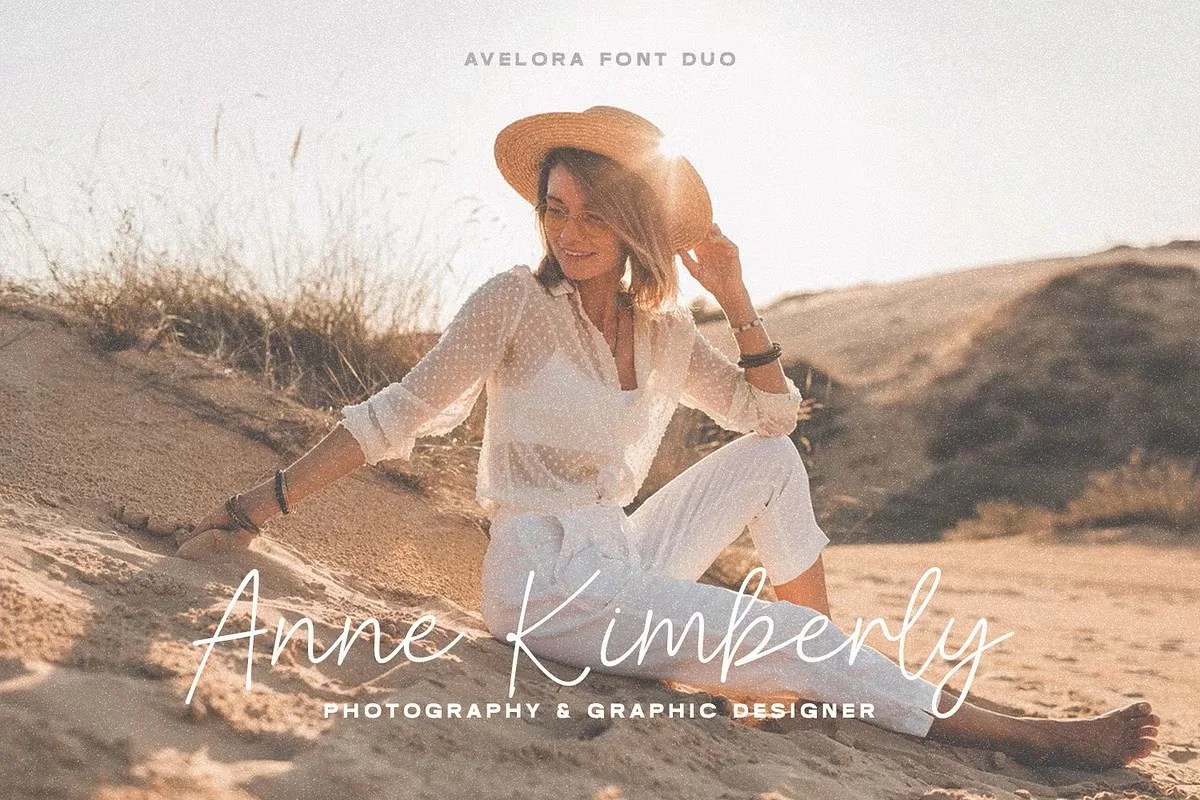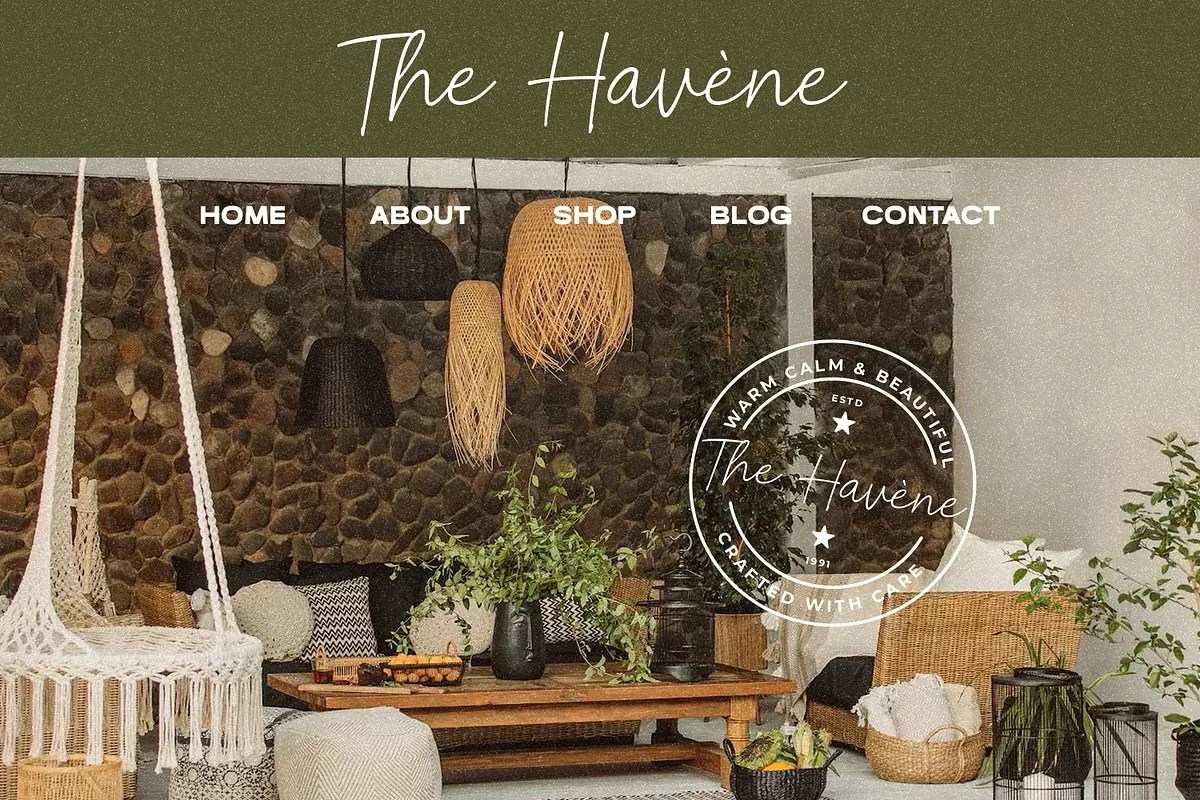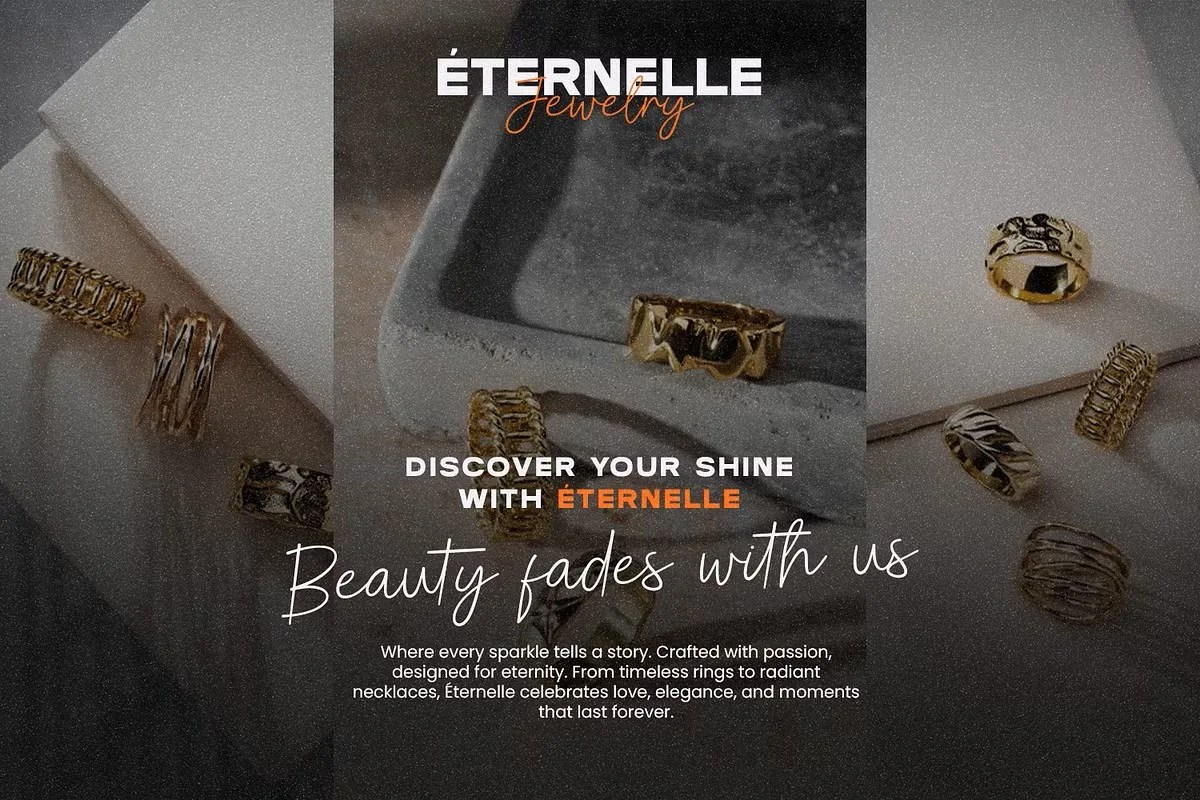
Avelora by Hasbi Creative. This is a truly elegant sans serif font that speaks with a soft and graceful voice. It beautifully blends minimalist design principles with a gentle, human touch. The font is perfect for projects that require a feeling of warmth and understated sophistication. Avelora brings a quiet, poised confidence to any layout, ensuring your message feels both modern and approachable.
This font is a natural fit for projects with a gentle and sophisticated theme. Specifically, its graceful style is perfect for health, beauty, and wellness branding. It communicates a sense of calm, care, and quality. Furthermore, this elegant sans serif font is excellent for lifestyle bloggers, magazines, and social media influencers. It creates a beautiful and highly readable experience for the audience. Use it for wedding invitations or cosmetic branding to add a touch of modern romance and class.
• Minimalist and elegant sans serif style
• Features gentle curves and rounded corners
• Ideal for lifestyle, wellness, and cosmetic branding
• Adds a warm and sophisticated touch